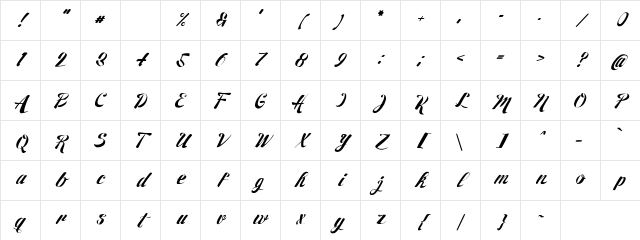
27th RPS Regular
Foundry: PYRS Fontlab Ltd. / Made with FontLab
Design Context for 27th RPS
27th RPS is a composed and adaptable typeface that performs quietly and consistently across a wide range of design contexts.